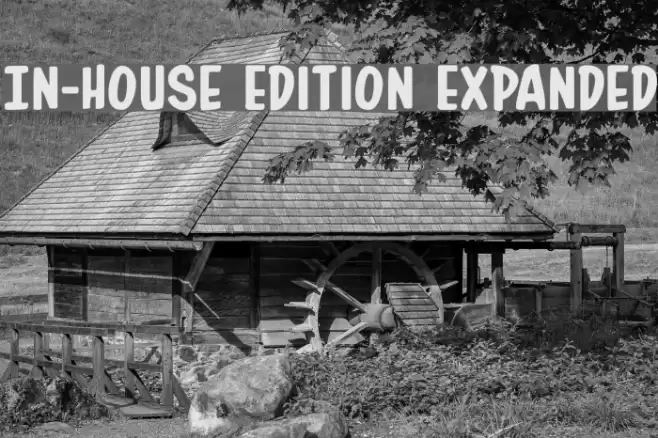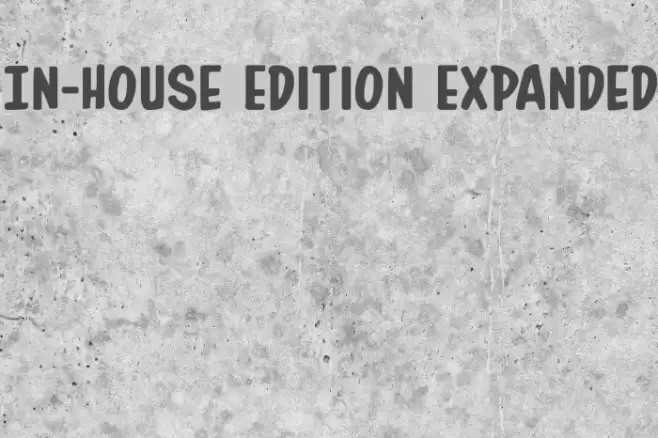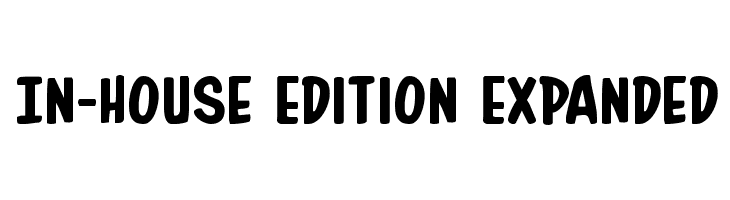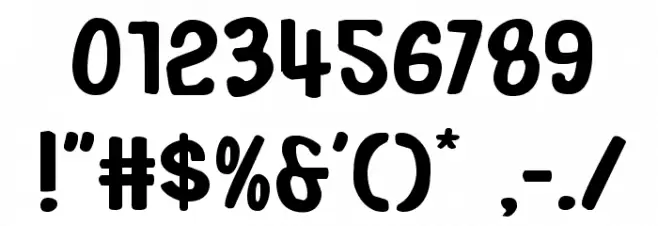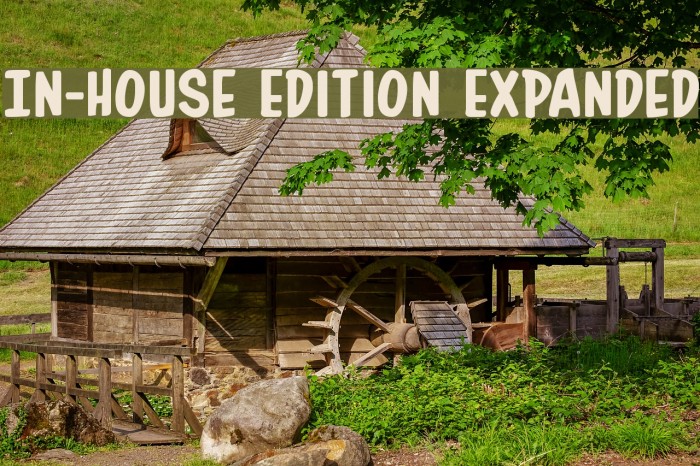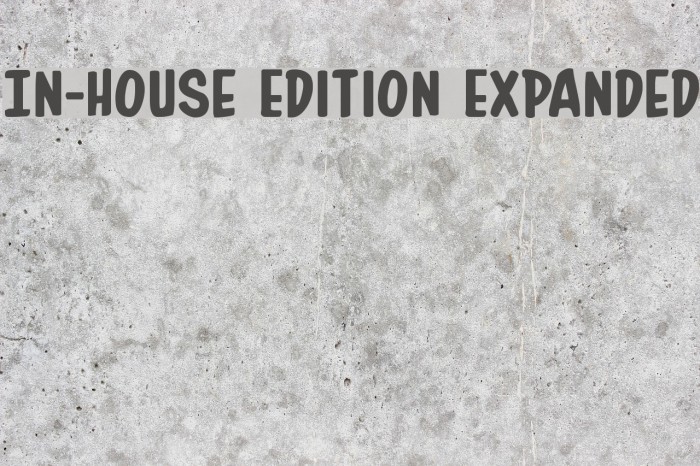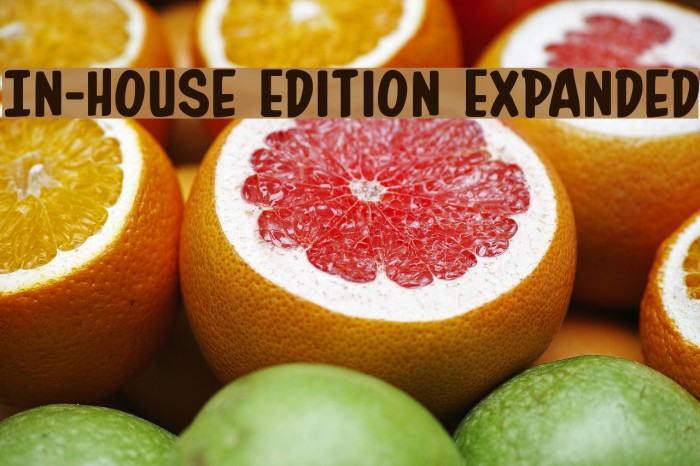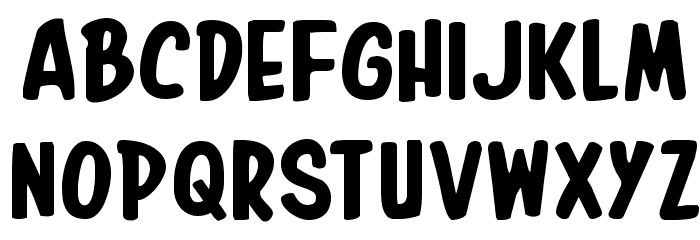
In-House Edition Expanded Font
In-House Edition Expanded Description
This font features bold, rounded characters with a playful and friendly appearance. The letters are slightly condensed, giving a compact feel while maintaining readability. The strokes are consistent in thickness, providing a uniform look across all characters. The uppercase and lowercase letters are well-balanced, and the numbers are clear and distinct. Special characters are included, matching the overall style of the font. This font is ideal for projects that require a fun and approachable aesthetic, such as children's books, casual branding, or playful advertising.
A bold, rounded font with a playful and friendly style from Comic fonts.
- Proposed Projects: Ideal for children's books, casual branding, playful advertising, and informal invitations.
- Overall Style: Playful